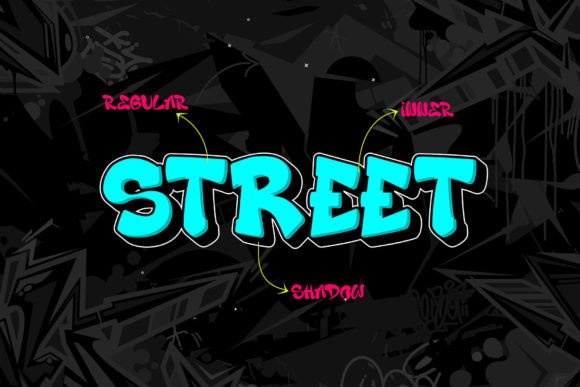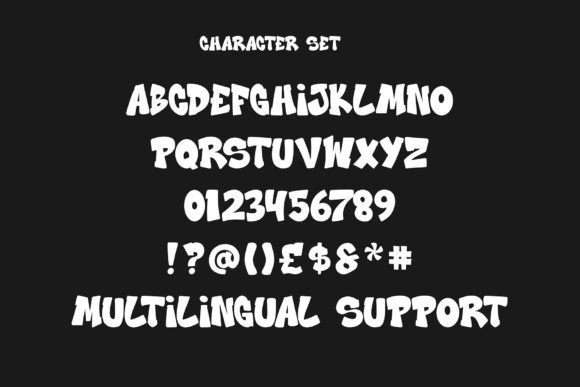
Introduction to Dynamix Street Font
As a designer, have you ever stumbled upon that perfect font that makes your creative project pop? For me, it was a moment when I combined the Dynamix Street Font with a gritty cityscape image – the result was electrifying. The font’s 3D artistry infused the design with a high quality, street-smart vibe that drew viewers in.
What makes Dynamix Street Font so valuable is its versatility. Whether you’re working on a streetwear design, album cover, or poster, this font can add an unmistakable visual impact. Its unique multi-tiered structure allows you to selectively layer the font, creating a strikingly immersive 3D experience that complements your design. Plus, with a transparent background, you can easily integrate it with any background image or color. And the best part? It’s available for free download, making it an invaluable design resource for any creative project.
Get ready to take your designs to the next level with the Dynamix Street Font – a true game-changer in the world of design.
Key Features of Dynamix Street Font
- High-quality design resource with a unique urban feel, perfect for creative projects.
- Unique characteristics include a bold, graffiti-inspired style and a wide range of customizable options.
Honest Review: Dynamix Street Font
I recently stumbled upon the Dynamix Street Font, a versatile design resource that has been making waves in the creative project community. As a designer, I was excited to dive in and see what it had to offer.
What works well: ✨ The Dynamix Street Font boasts a high-quality design that exudes a sense of edginess and urban flair. It’s perfect for projects that require a bold and eye-catching aesthetic. I also appreciated the transparent background, which made it easy to layer over images and textures.
However, I did encounter a few limitations: ⚠️ The font’s bold and condensed style can make it difficult to read at smaller font sizes. Additionally, the font’s versatility can sometimes make it feel overused or clichéd.
Overall, I was impressed with the Dynamix Street Font’s potential as a design resource. While it may have some limitations, its unique style and high-quality design make it a valuable addition to any designer’s toolkit. With a little creativity and experimentation, I’m confident that this font can help bring any project to life.
Getting the Most Out of Dynamix Street Font
To get the most out of this font, use it for titles, headings, and other prominent text elements. Experiment with different font sizes, colors, and effects to create a unique and engaging design.
The Dynamix Street Font is commonly used for:
- Graphics and icons
- Brand identity design